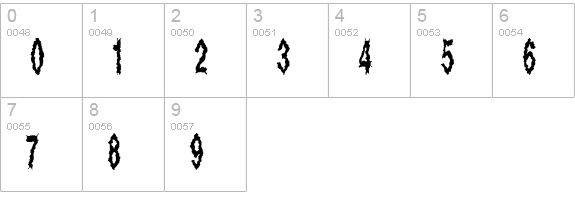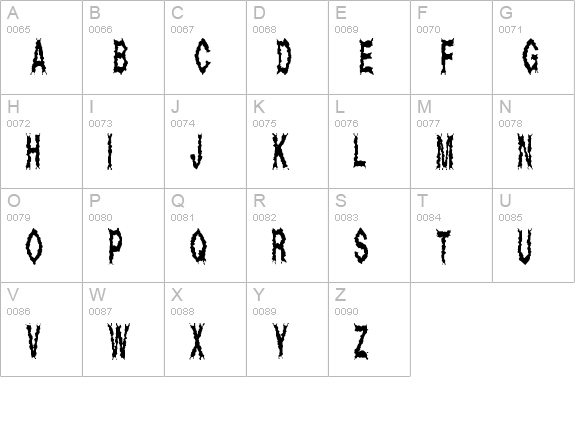
Dead Alive font is a bold and striking typeface that exudes a sense of energy and dynamism. With its edgy, hand-drawn style and intricate details, this font is perfect for adding a touch of uniqueness to any design project. Whether you're creating posters, logos, or social media graphics, Dead Alive font will make your text stand out and grab attention. The best part? Dead Alive font is completely free to download at FontsMarket.com. This means you can easily add this eye-catching font to your collection without breaking the bank. So go ahead and give your designs a bold and impactful look with Dead Alive font today!